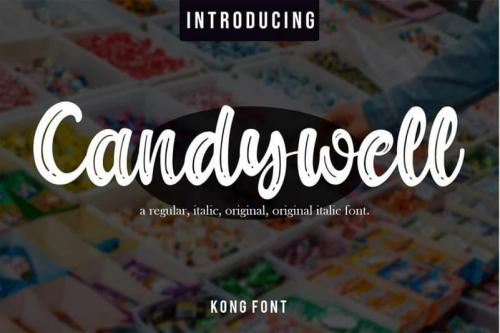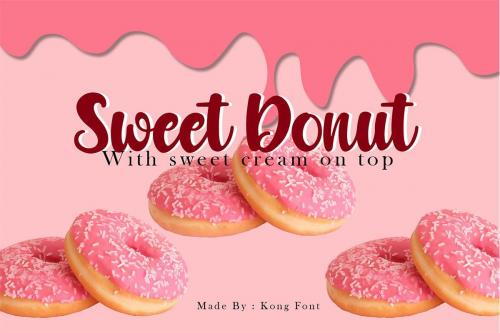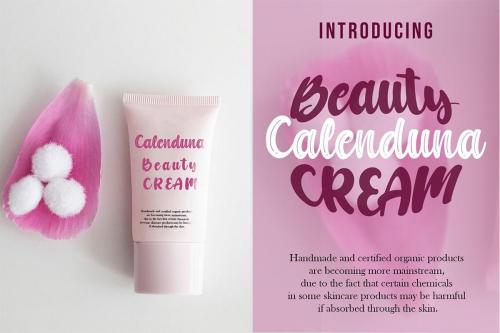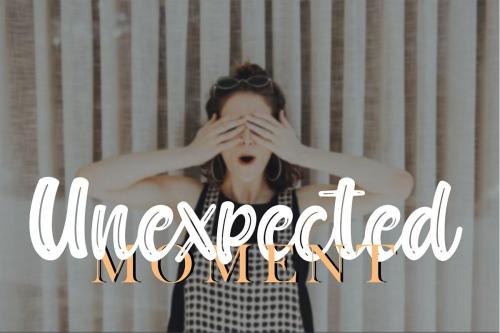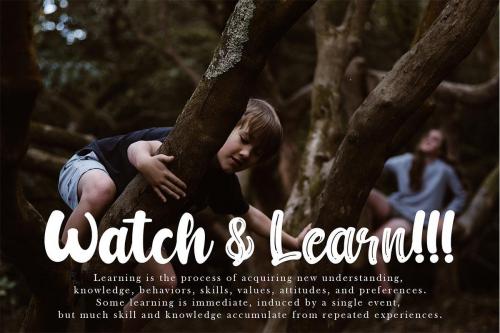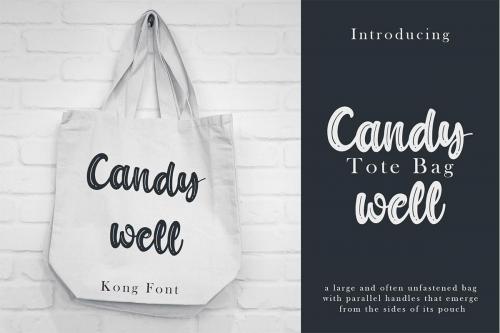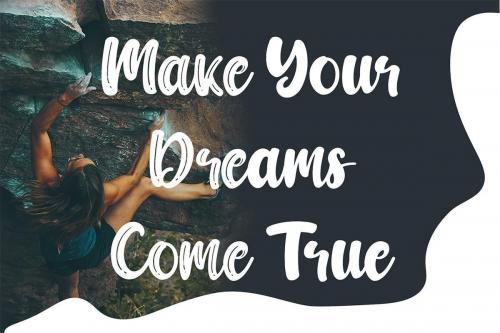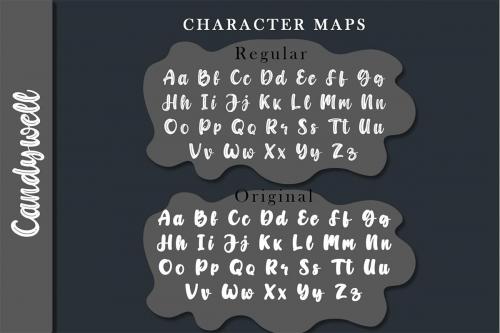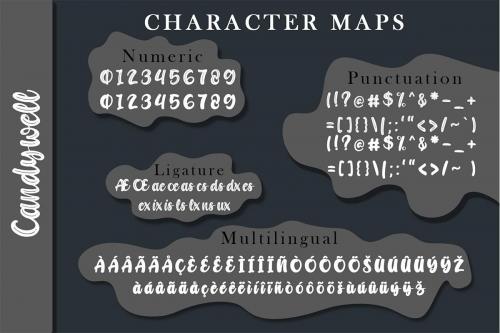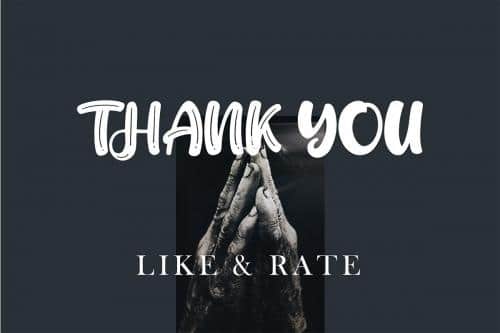
Candywell Brush Font
Candywell Brush Font is of high quality and multipurpose font. With brush style composition make this fonts suitable for logotype or headlines letter text.
Suitable for use on the project such as branding, packaging, poster, headline, brochure, t-shirt, title, logotype, advertising, tag labels, product mock-up, etc.
• Designer: Kong Font